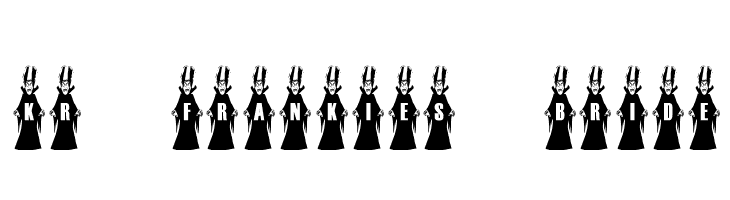
A playful, monster-themed decorative font with bold characters.
A playful, horror-themed decorative font with characters embedded in stylized figures.